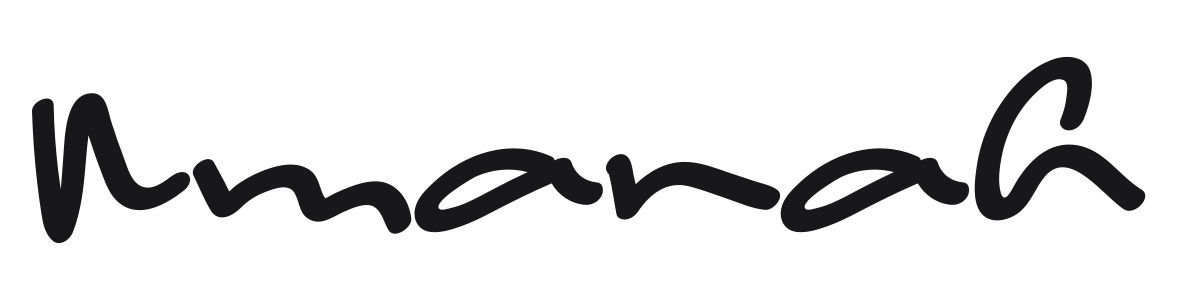
Amanah
by Muharima Rasyid
Amanah is a casual handwritten script with flowing connected strokes and a relaxed, pen-written energy. Letters link naturally across the baseline with a slight forward lean and rounded terminals that keep the mood light and approachable. It reads best at display sizes where the fluid rhythm really comes through.